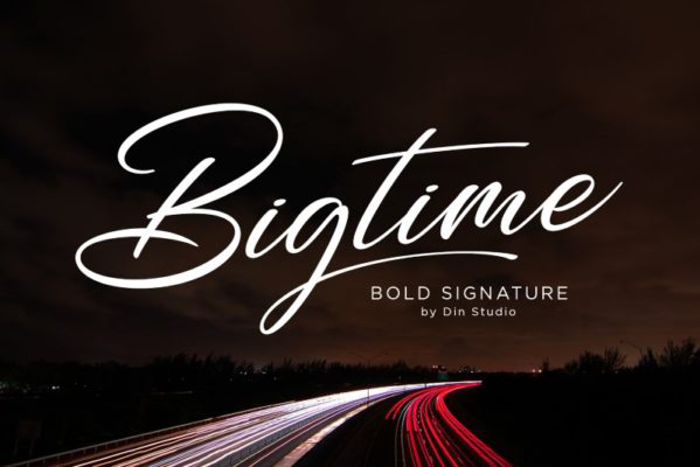
Bigtime Font
Bigtime Script is the best choice. It is presented with natural, modern and luxury styles. Bold identity will give your work more value, so you will surely need this font for your branding.
Features include:
• Alternates
• Swashes
• Multilingual Supports
• Numerals and Punctuations